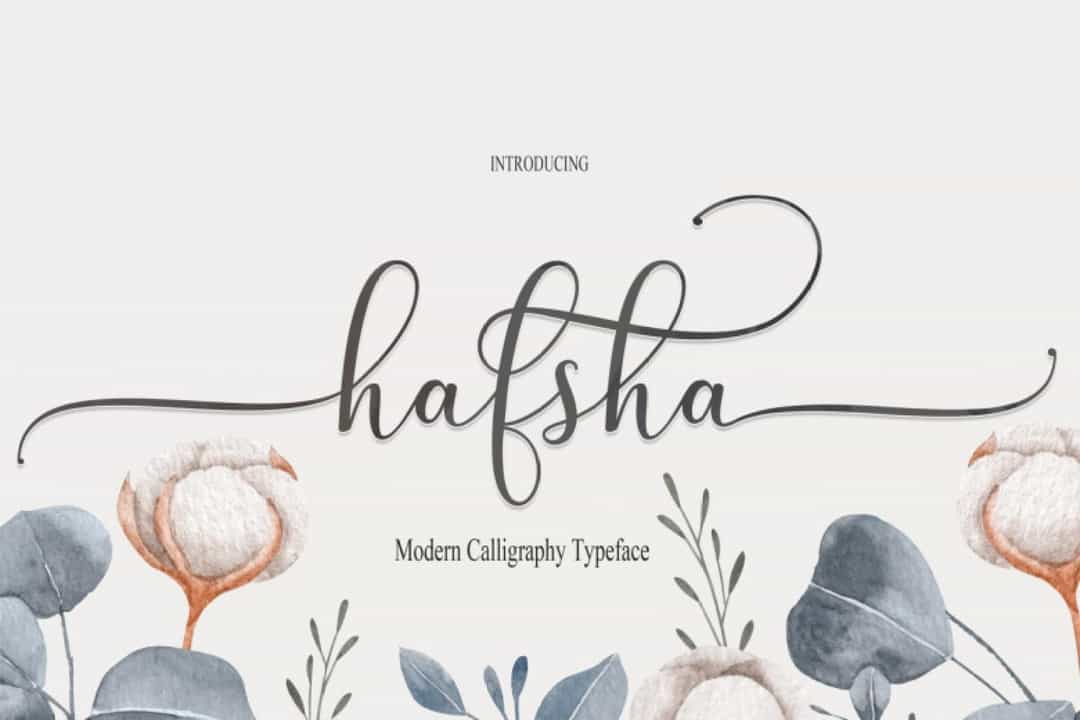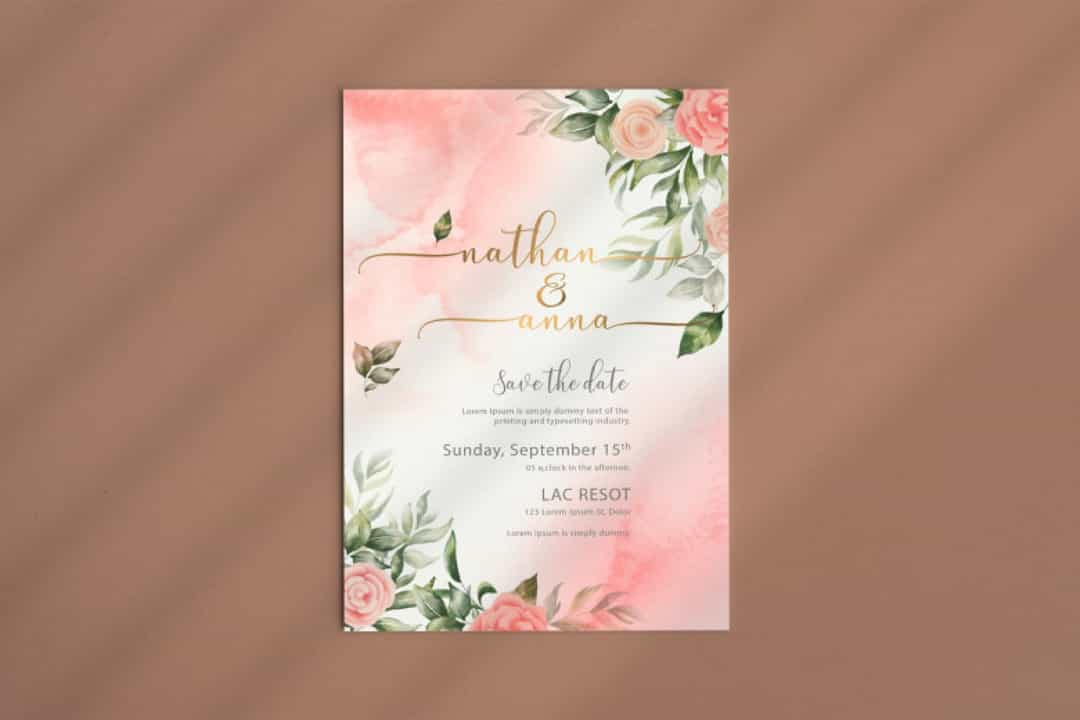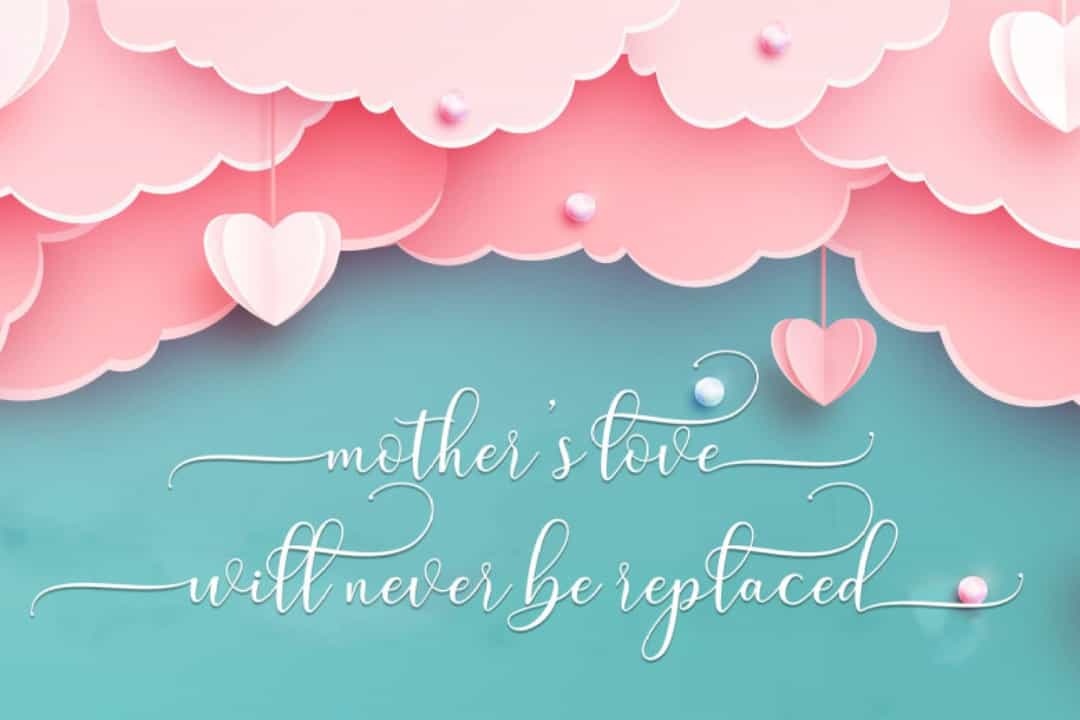
Hafsha is an amazing calligraphy script font designed by talented calligrapher Ali Aswany. Stunning in design and superb in detail, Hafsha can add beauty and richness to any work it touches – ideal for calligraphy! Plus it comes PUA encoded so you have access to all glyphs and swashes effortlessly!